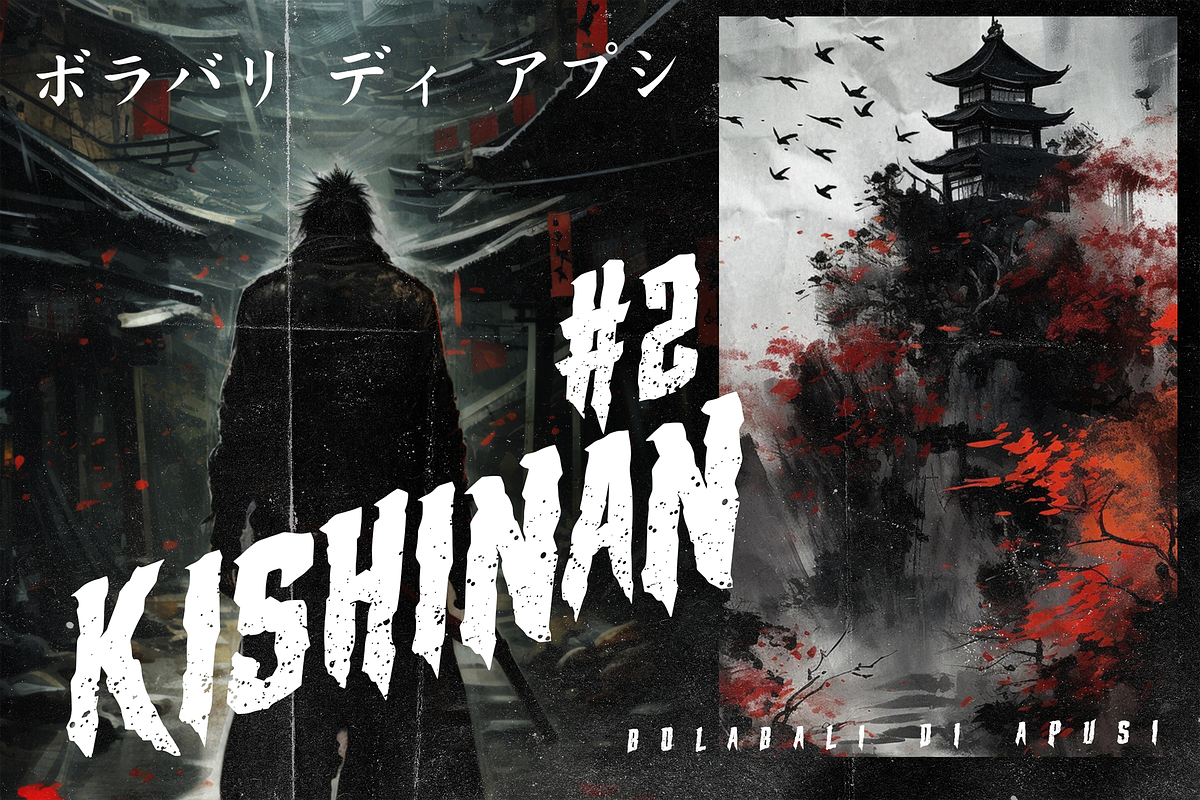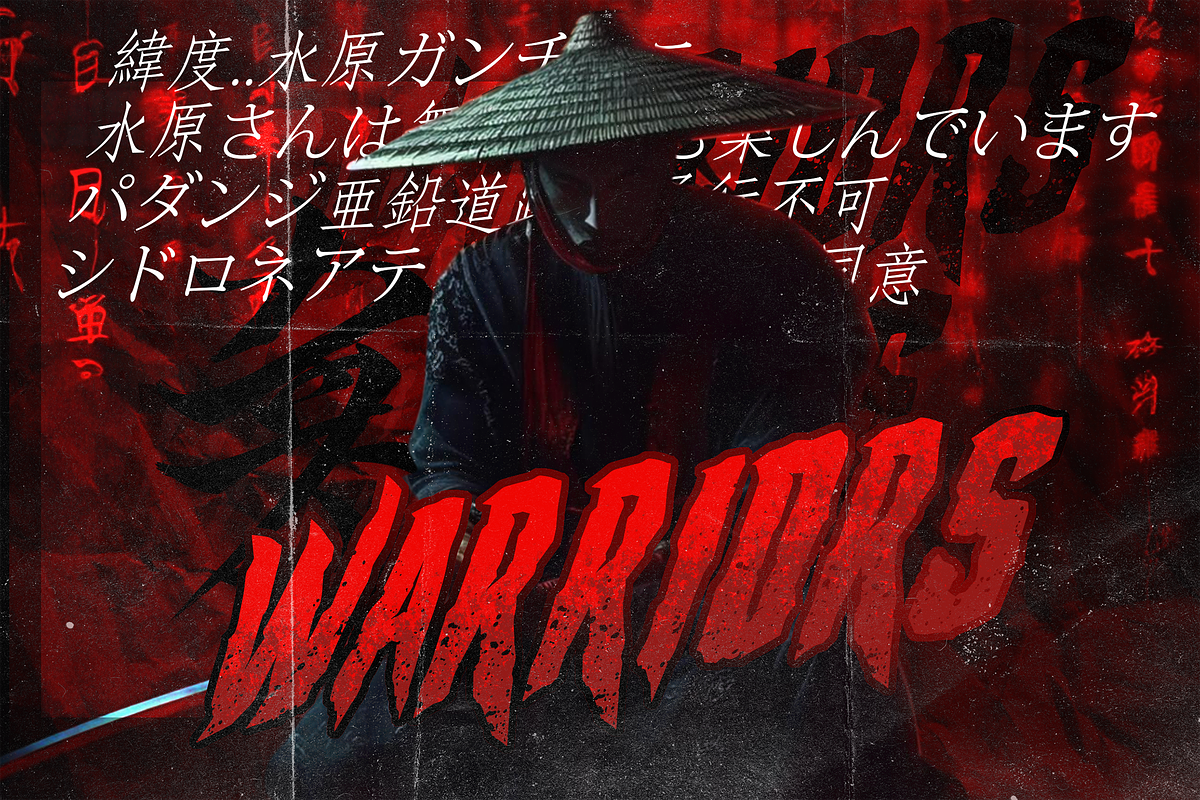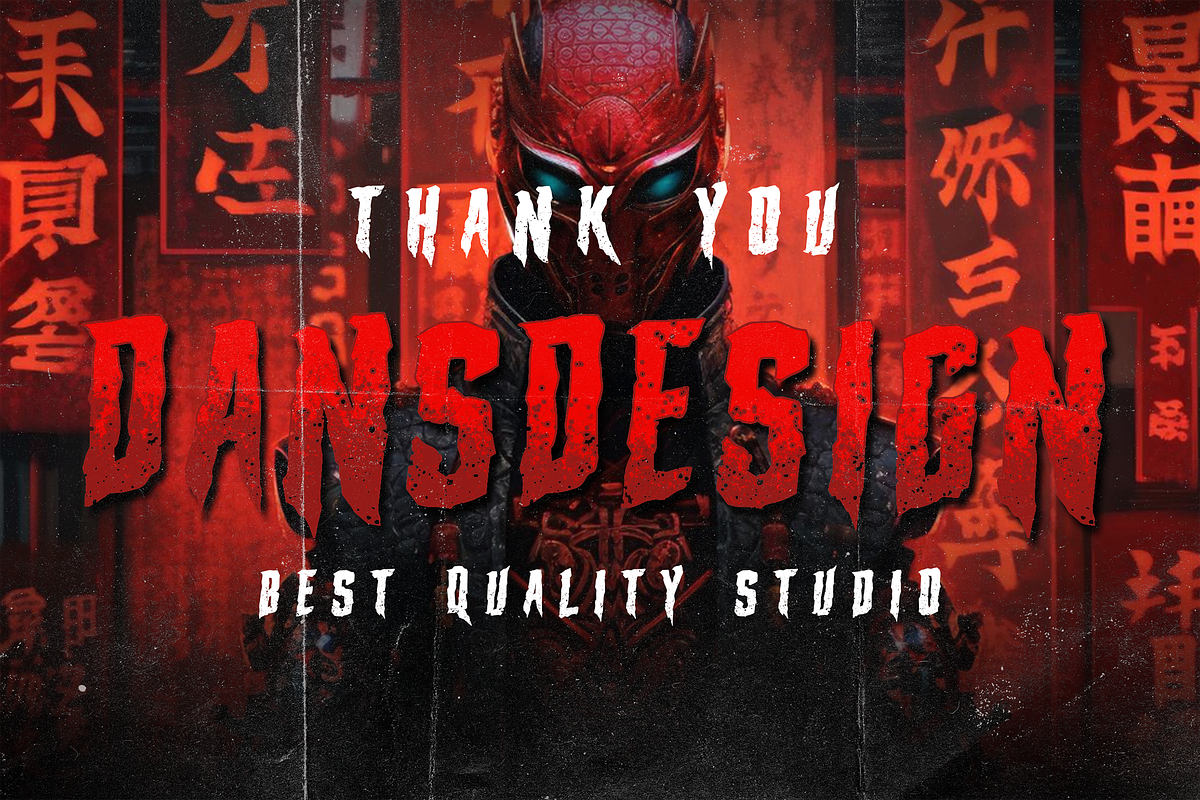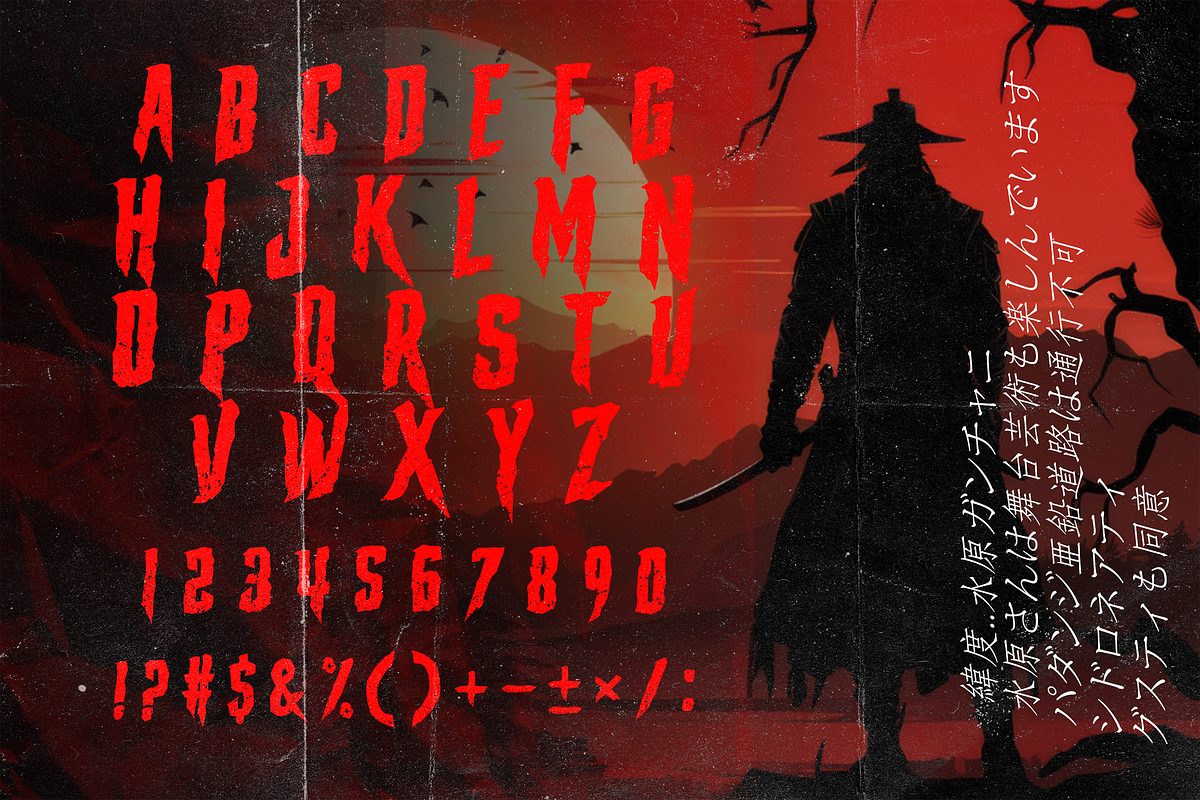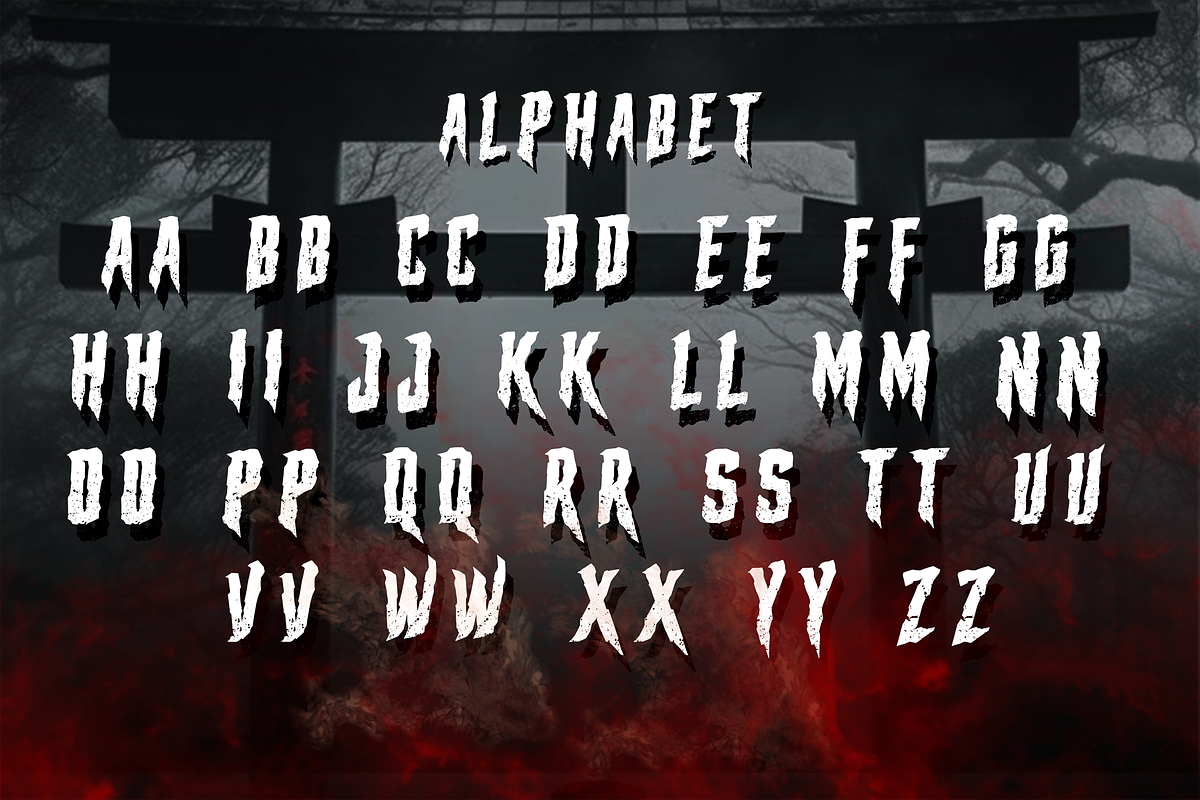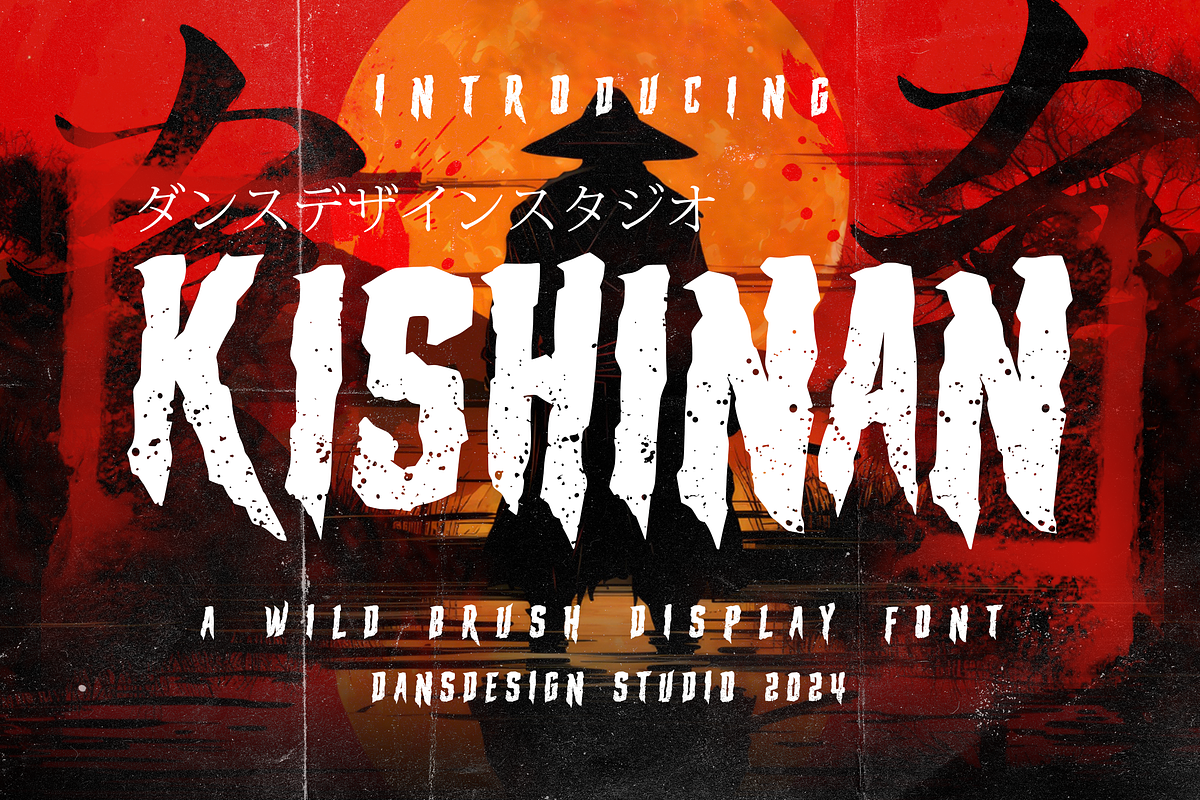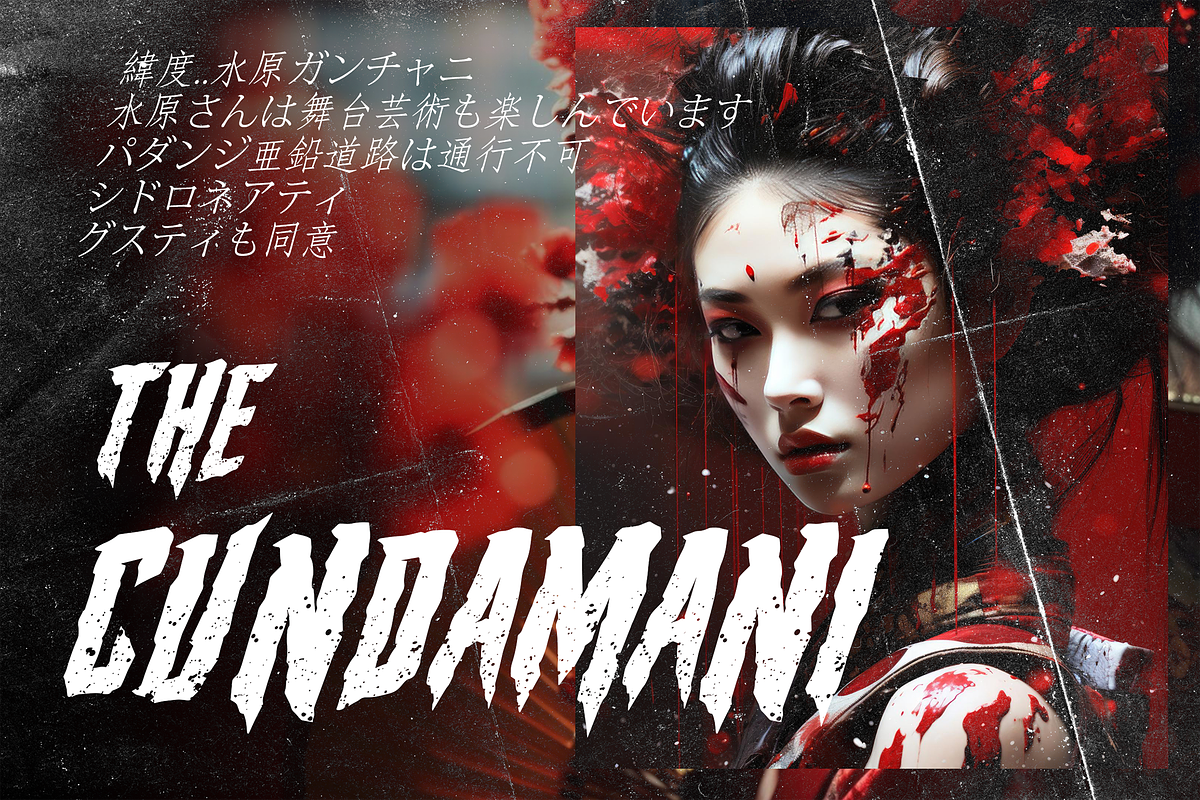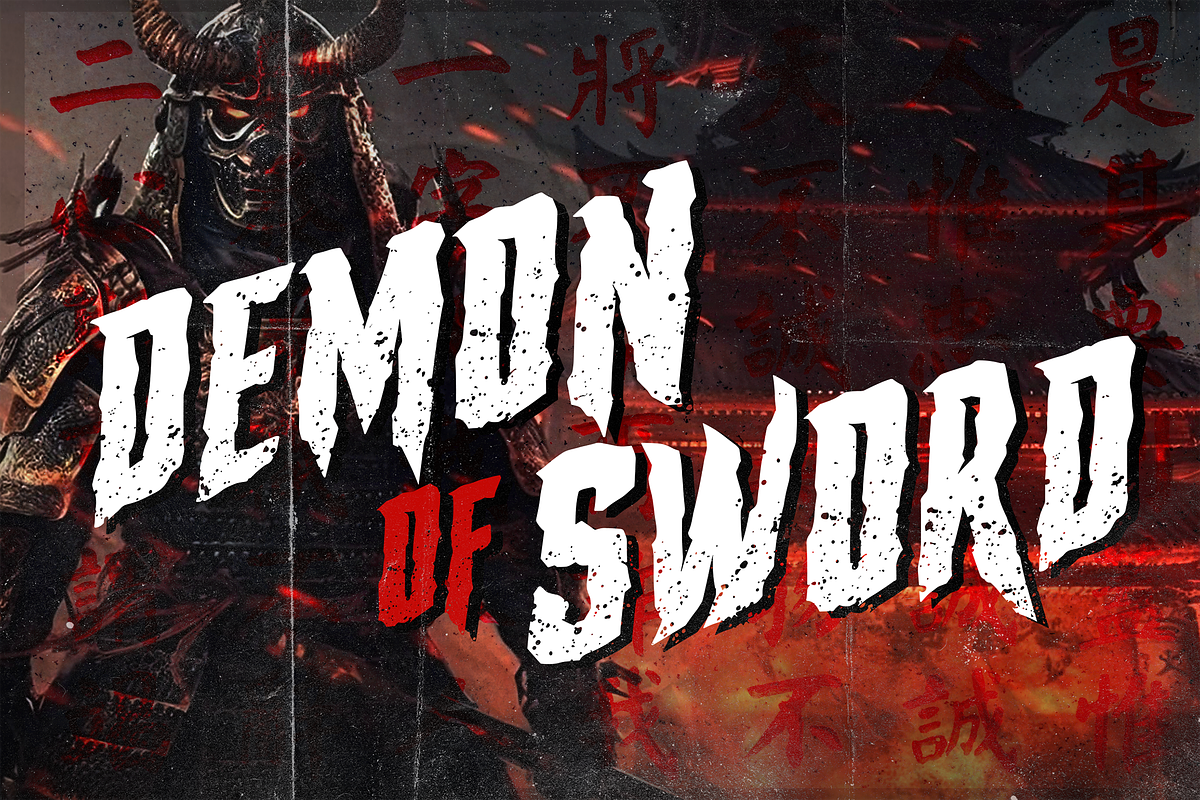
KISHINAN Modern Graffiti Brush Font
KISHINAN MODEREN BRUSH GRAFFITI FONT a distinct, highly detailed. Modern graffiti brush font It would make a great choice for exquisite retro-urban designs, business branding, logos, Apparel designs, and more.